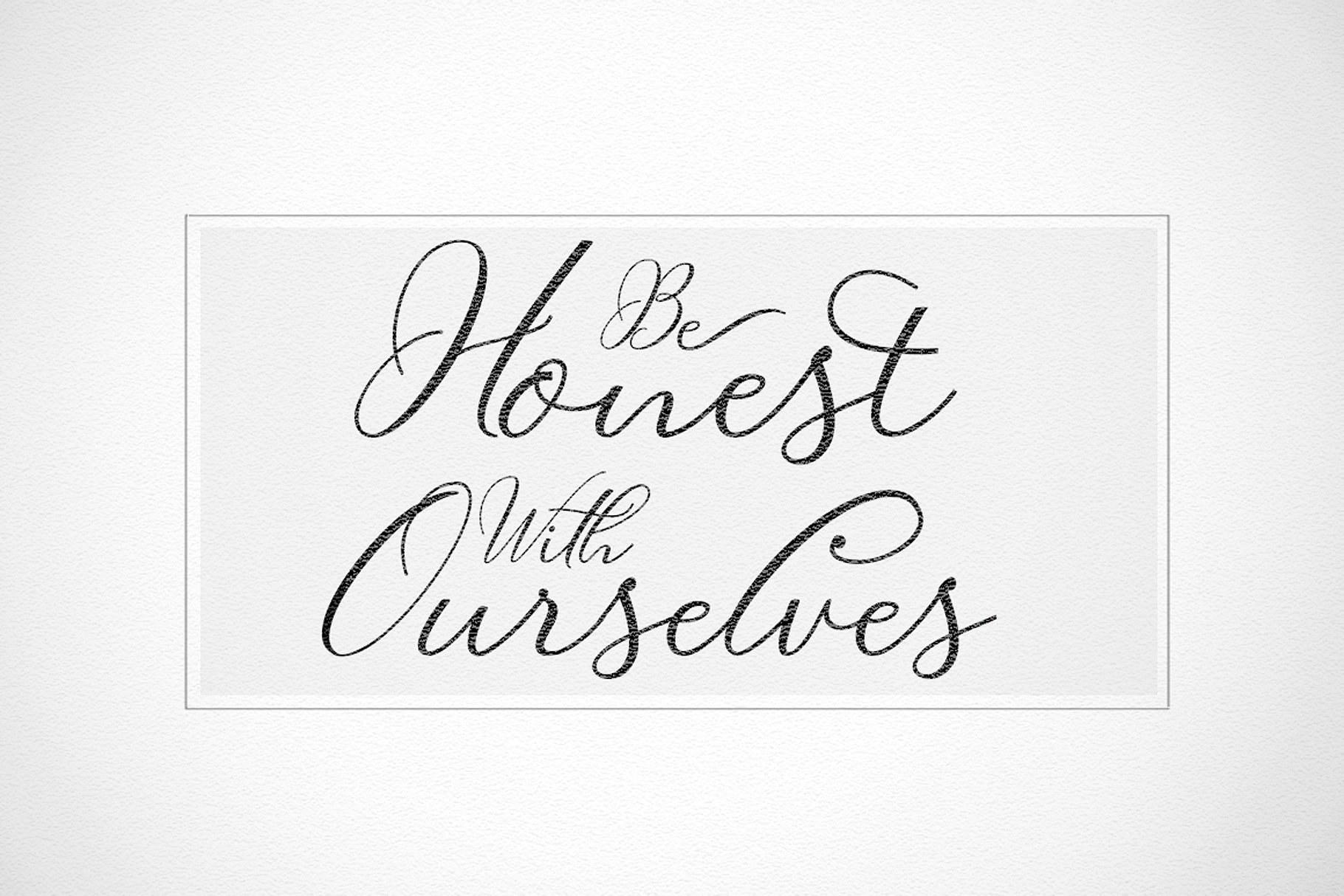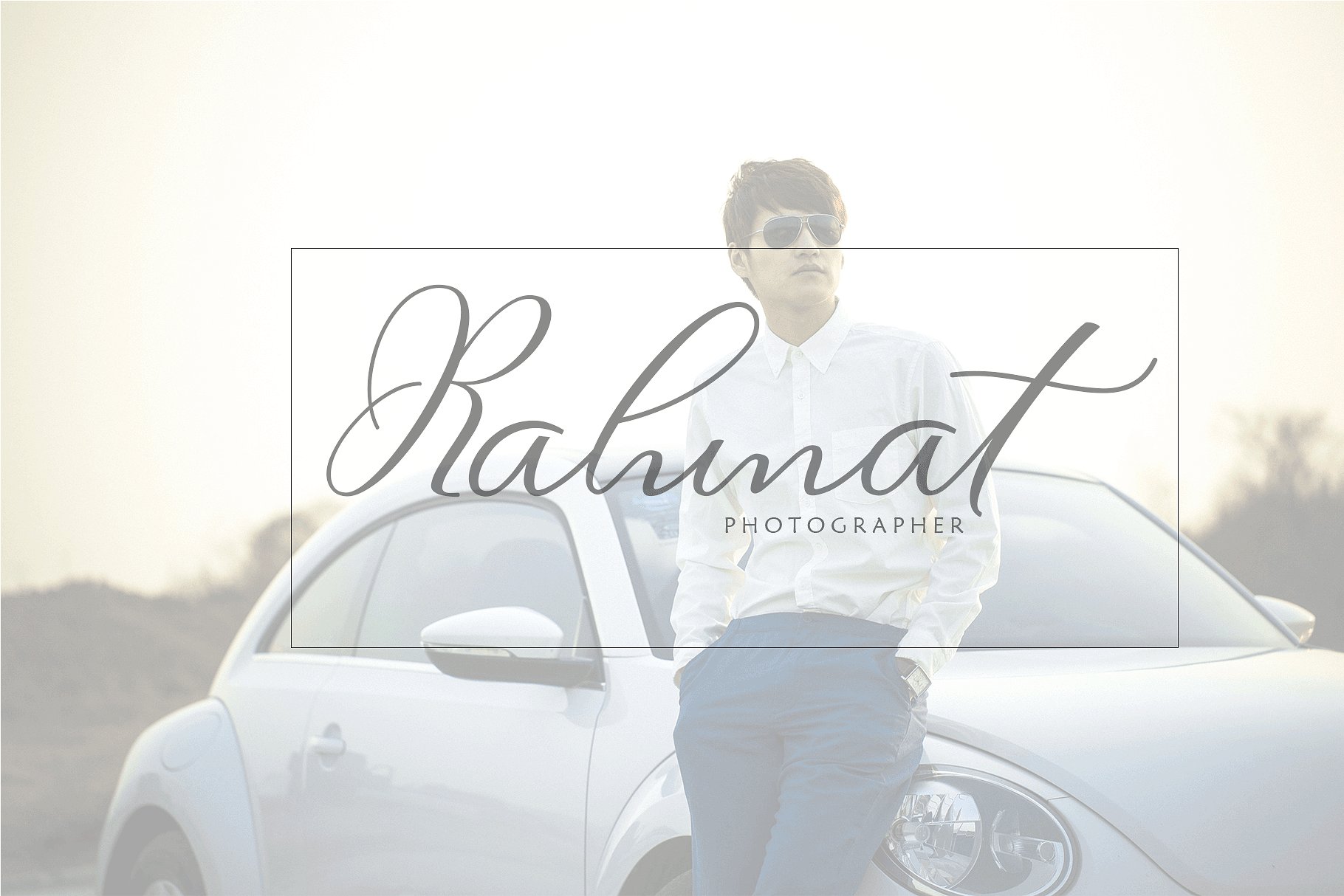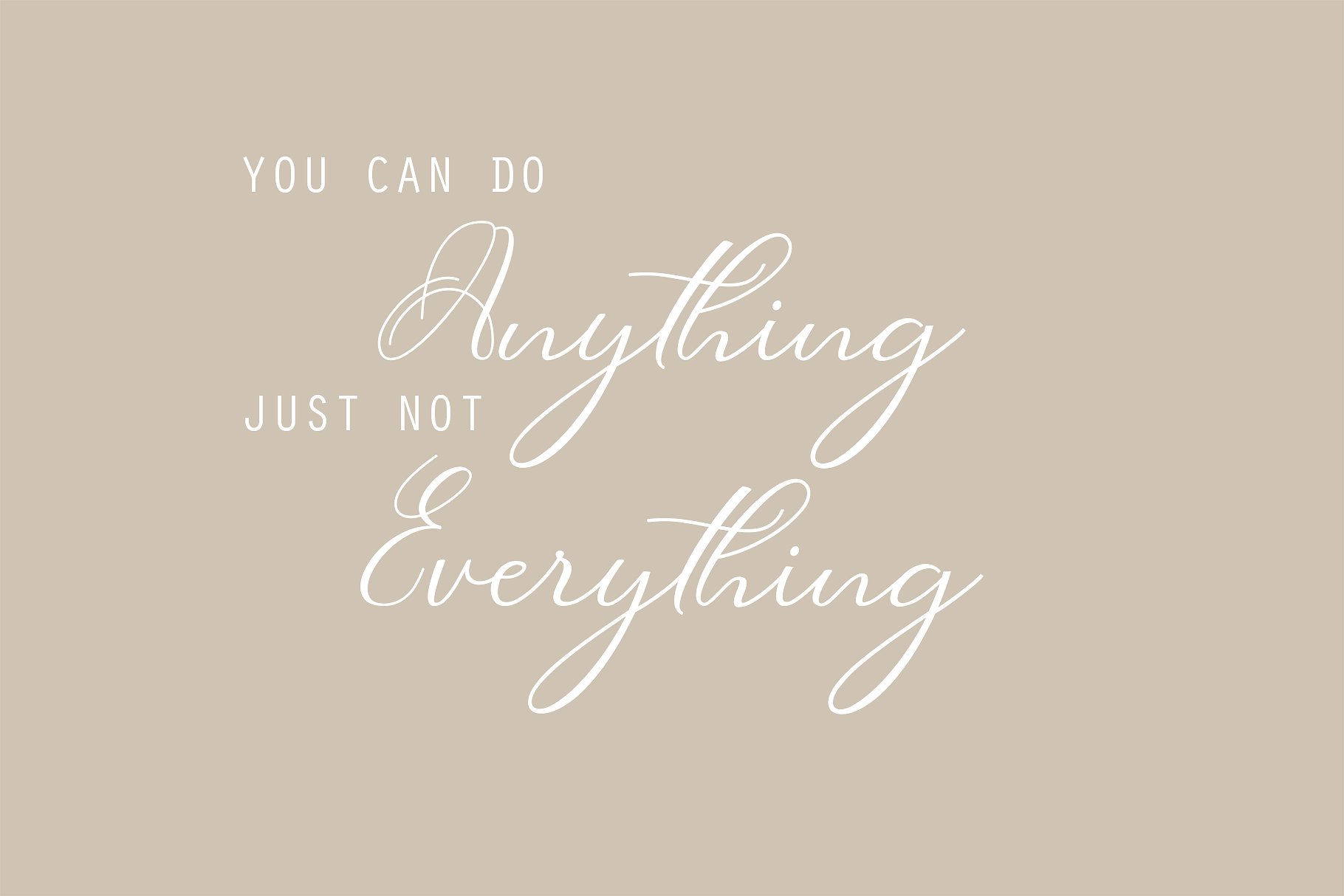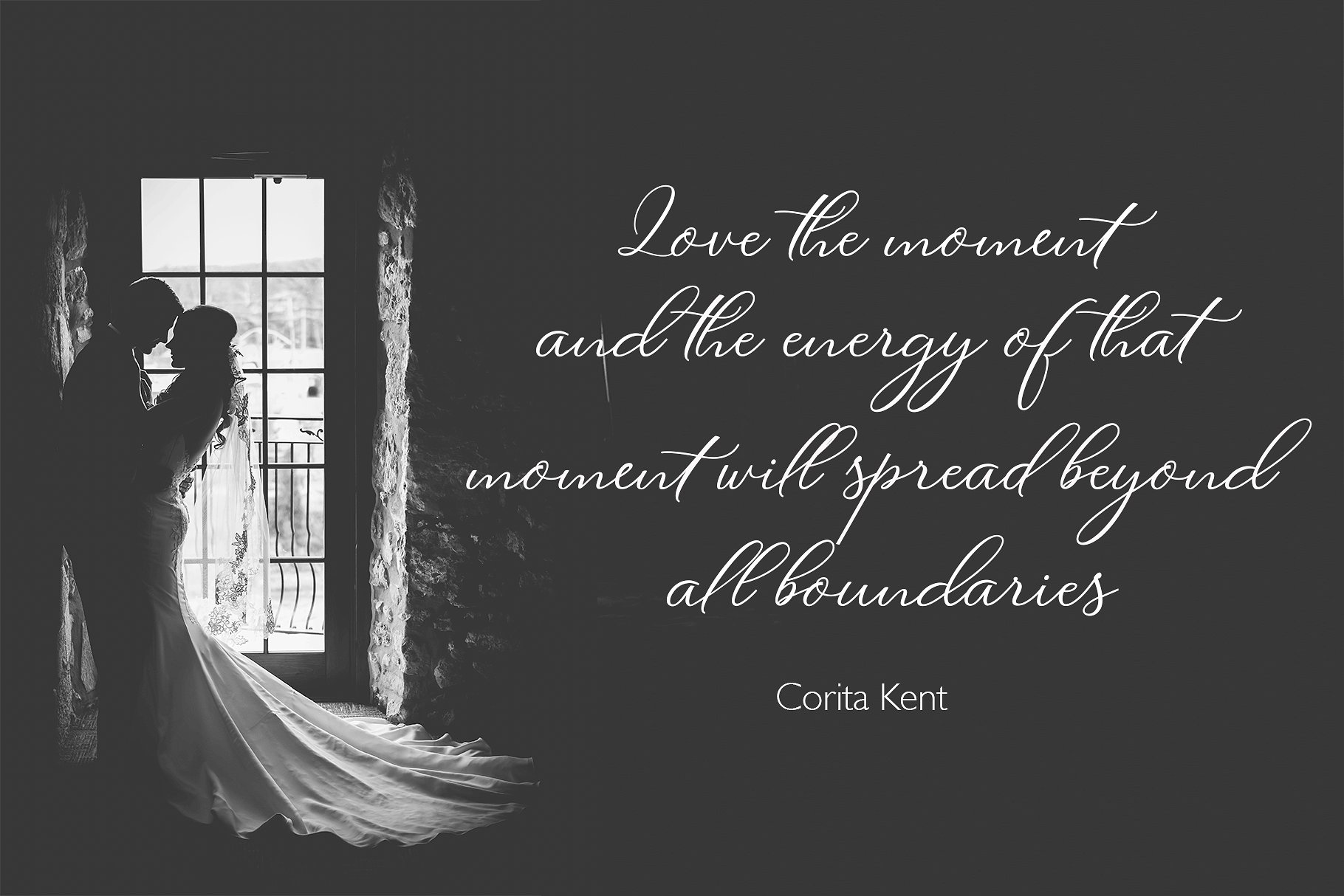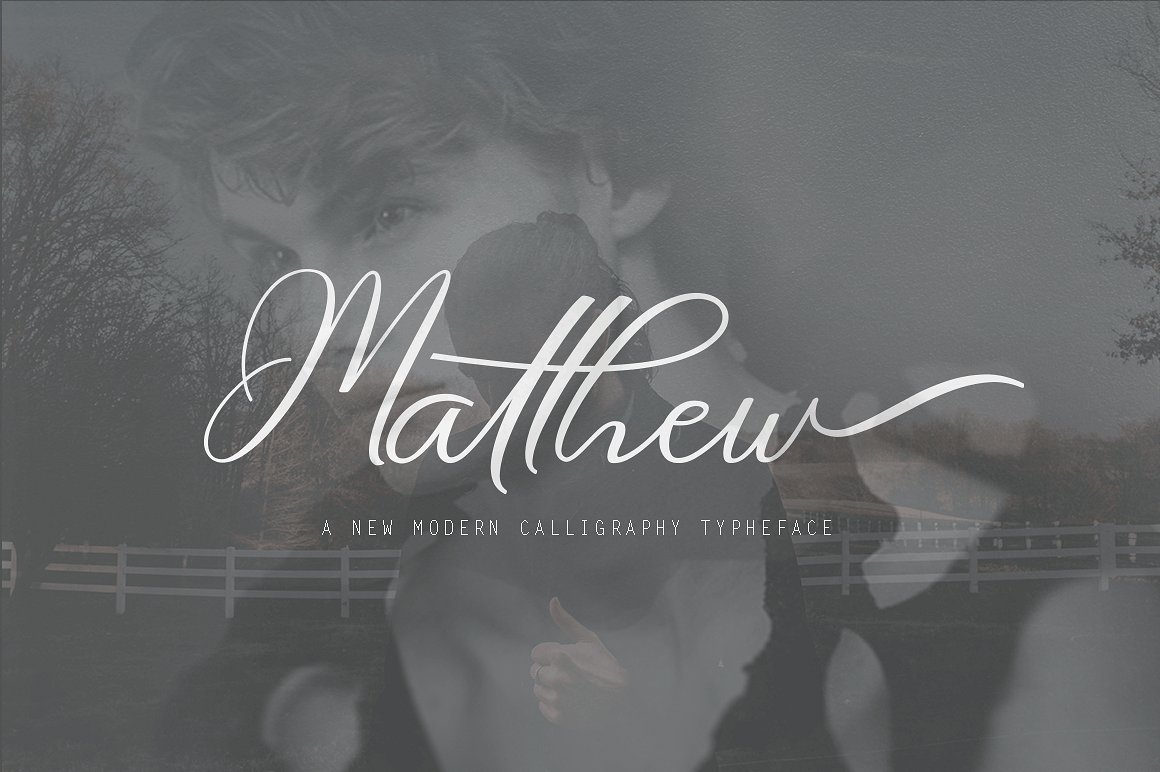
Matthew Script Font
This is a classy yet relaxed hand written script. Introducing a new calligraphy style scrip font – Matthew. Which is combining the style of classic calligraphy with an modern style. combines from copperplate to contemporary typeface with a dancing baseline, modern and elegant touch. including initial and terminal letters, alternates, ligatures and multiple language support..